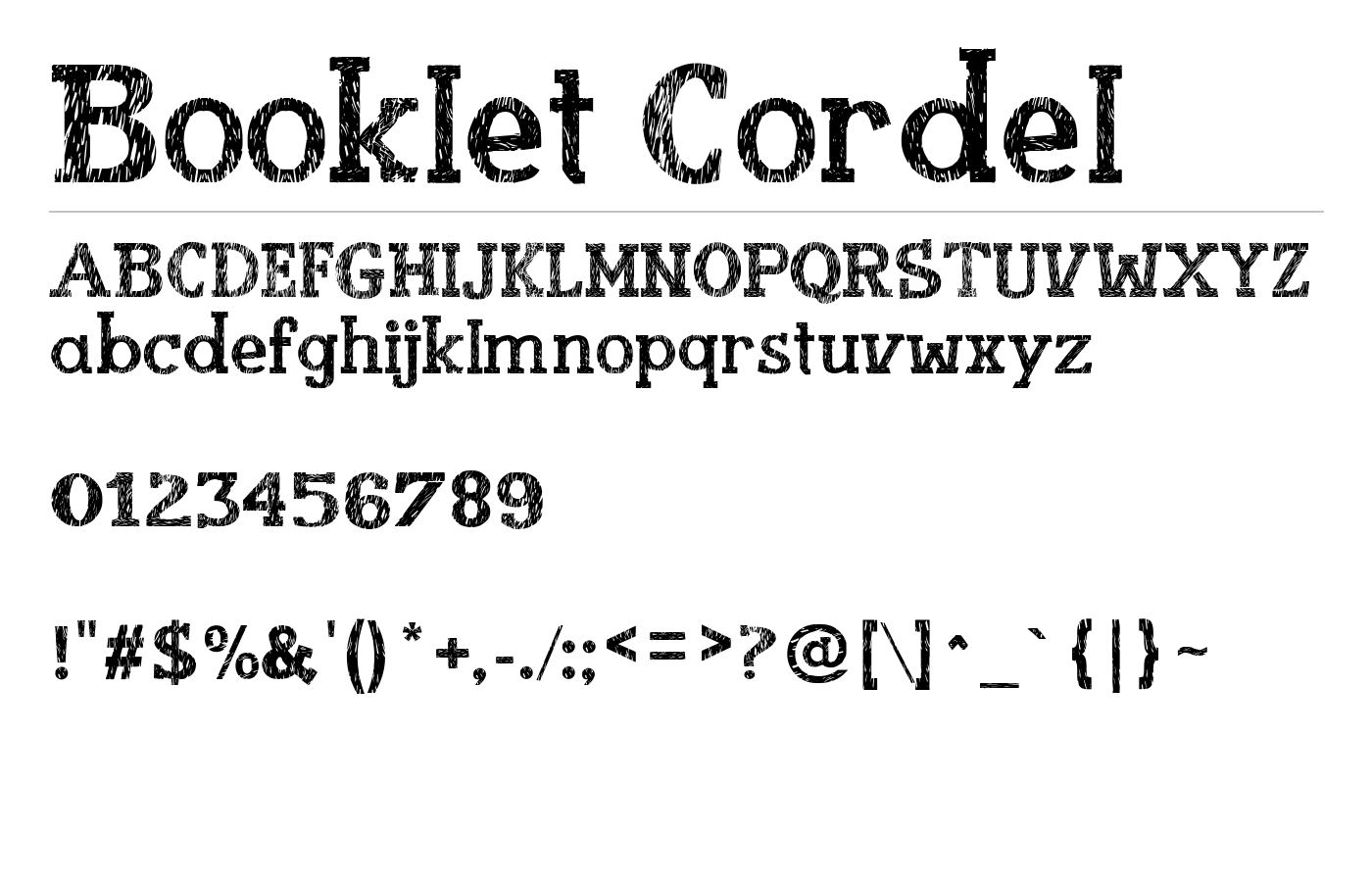
Booklet Cordel is a bold slab serif font with a textured, distressed appearance that adds a handcrafted, vintage feel to its strong and structured letterforms. Its medium width and sturdy serifs make it stand out with a charming roughness, perfect for creating eye-catching headlines or packaging that require an authentic, rustic vibe. This font works well for branding and editorial designs that aim for a rugged but approachable personality.
Booklet Cordel Font
About Booklet Cordel Font